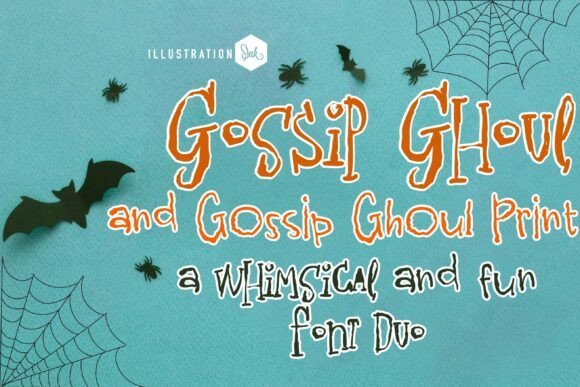
The Perfect Potion for Your Creepy-Cute Projects
Have you ever stumbled upon the perfect font while browsing through a design market, only to be left wondering how you ever managed without it? That’s exactly what happened when I discovered the enchanting Gossip Ghoul Duo Font. This quirky and playful typeface set is a game-changer for designers looking to add a dash of spooky charm to their creative projects.
With two hand-drawn styles – Gossip Ghoul and Gossip Ghoul Print – this duo delivers a whimsical mix of creepy and cute, making it the perfect addition to any Halloween-themed project. Whether you’re crafting spooky cards, designing party decor, or creating classroom projects, Gossip Ghoul Duo Font brings a lighthearted haunted vibe that’s both fun and full of personality.
Gossip Ghoul Duo Font Key Features
- Font Family: Gossip Ghoul Duo, a unique and playful font duo designed for various creative applications.
- Unique Characteristics: The Gossip Ghoul Duo font features a bold and playful design, with unique characters and ornaments that add a touch of whimsy to any project.
- Characters and Glyphs: The font includes a wide range of characters, including Latin, Cyrillic, and Greek alphabets, as well as various symbols and ornaments.
Review of Gossip Ghoul Duo Font
I recently had the chance to work with the Gossip Ghoul Duo Font, and I’m sharing my honest thoughts on its performance. ✨ One of the things that really stood out to me was its unique, playful vibe. It’s perfect for designs that need a touch of whimsy or a dash of spookiness. The font is highly customizable, allowing you to adjust the size, color, and spacing to suit your needs.
- ✨ High level of customization options
- ✨ Unique and playful design aesthetic
- ✨ Wide range of applications (e.g., social media, blog posts, posters)
However, there are a few limitations to be aware of. ⚠️ The font can be quite bold and eye-catching, which might make it difficult to read at smaller sizes or in crowded compositions. Additionally, the font’s quirky design might not be suitable for more formal or professional projects.
- ⚠️ Can be difficult to read at smaller sizes
- ⚠️ May not be suitable for formal or professional projects
Overall, I think the Gossip Ghoul Duo Font is a great choice for designers who want to add a touch of personality to their projects. With its high level of customization options and unique design aesthetic, it’s perfect for a wide range of applications. However, be aware of its limitations and use it thoughtfully to ensure the best results.